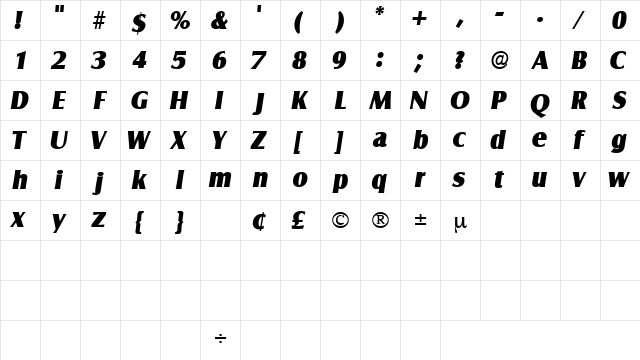
NautoDisplaySSK Italic Font Preview
NautoDisplaySSK Italic
Design Context for NautoDisplaySSK Typeface
NautoDisplaySSK is built around its visual character rather than neutral utility — its distinctive forms are designed to make an impression at display sizes. The dynamic lean of this cut emphasises speed and emphasis in any layout.
Font Pairing: Pair with a clean neutral sans-serif for body copy to let NautoDisplaySSK's character lead without overwhelming the composition.
Pro Tip: Use NautoDisplaySSK exclusively at display sizes — it was designed to be seen, not read at length. Let a neutral companion handle body copy.